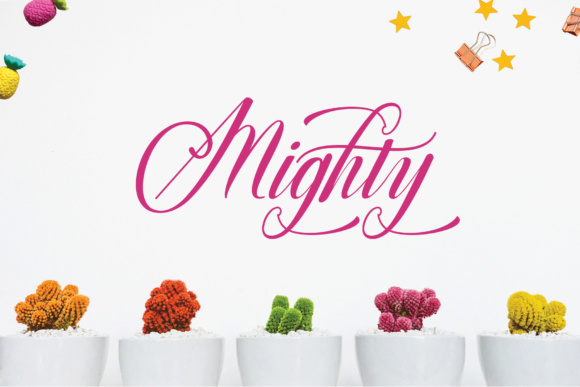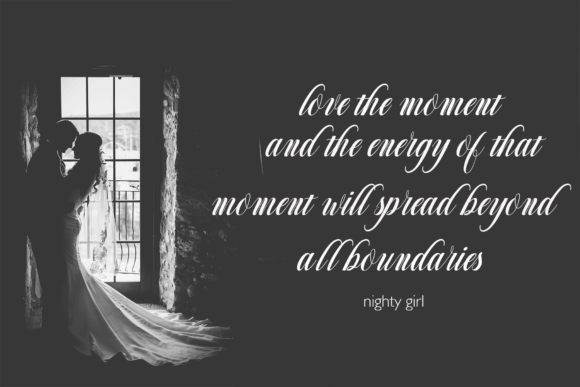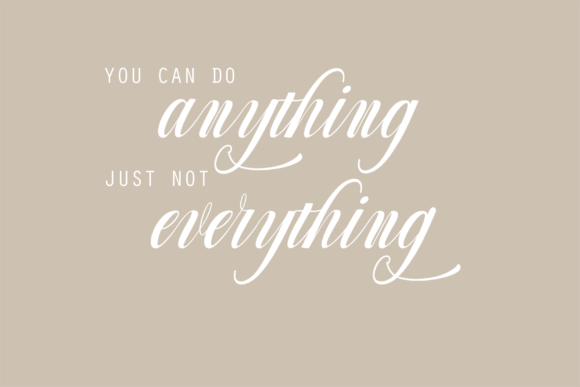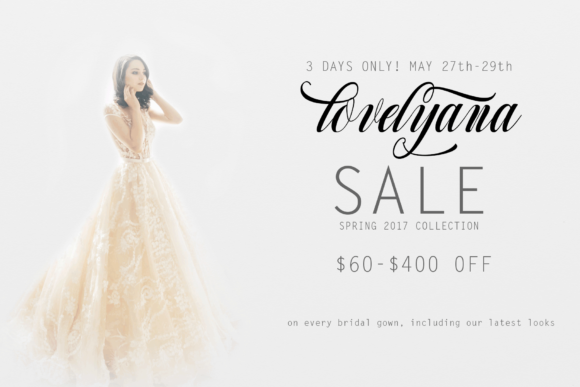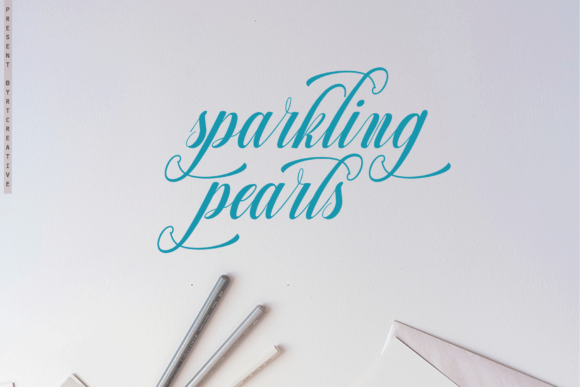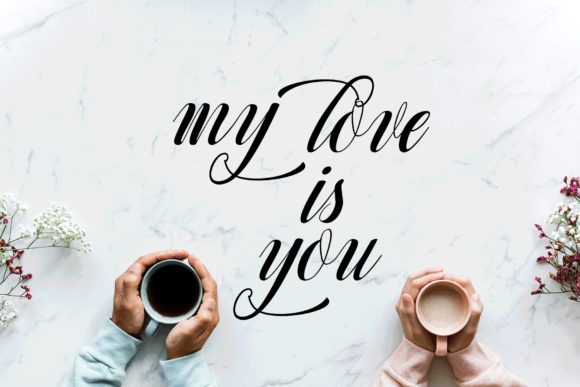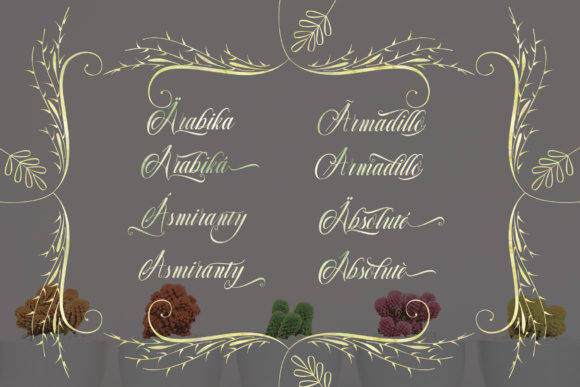
Mighty Font
About Mighty Font
A new variant of handmade script typeface. present to you to complete your collections of script font.
Can be used for various purposes such as headings, logos, wedding invitations, t-shirts, letterheads, signage’s, labels, news, posters, badges and much more!